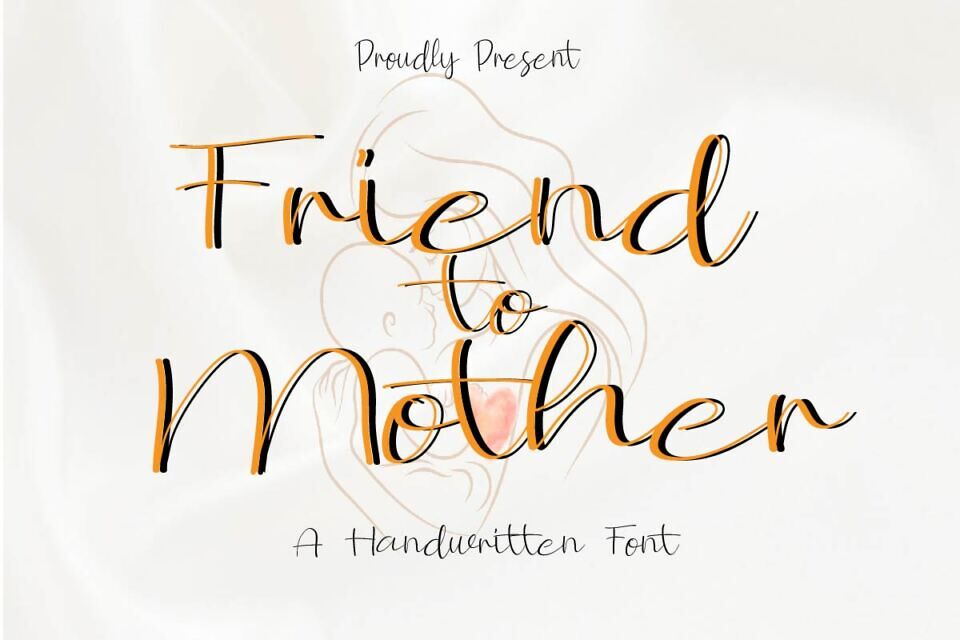
Friend To Mother is a casual handwriting font designed by Studio Hello Good. With 112 postscript glyphs supporting 171 characters, its smooth, friendly strokes make it ideal for wedding invitations, logos, quotes, and fashion branding.